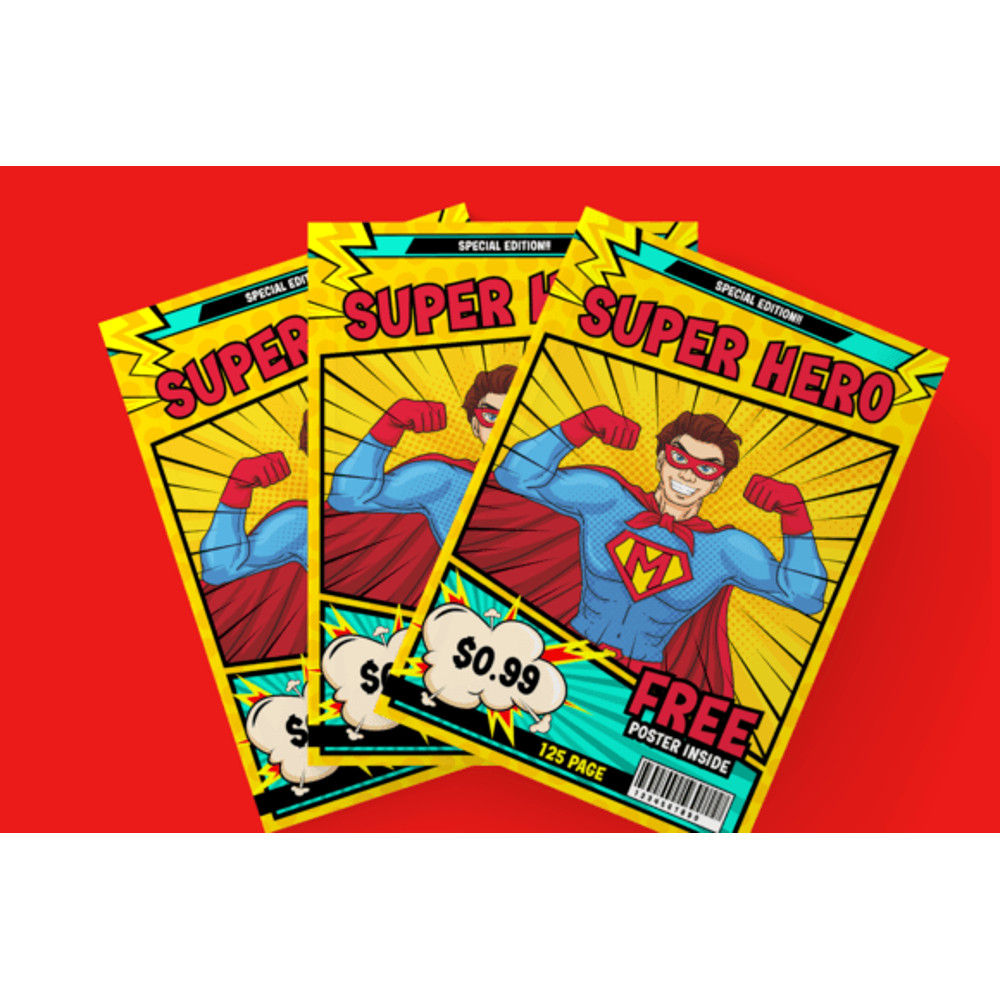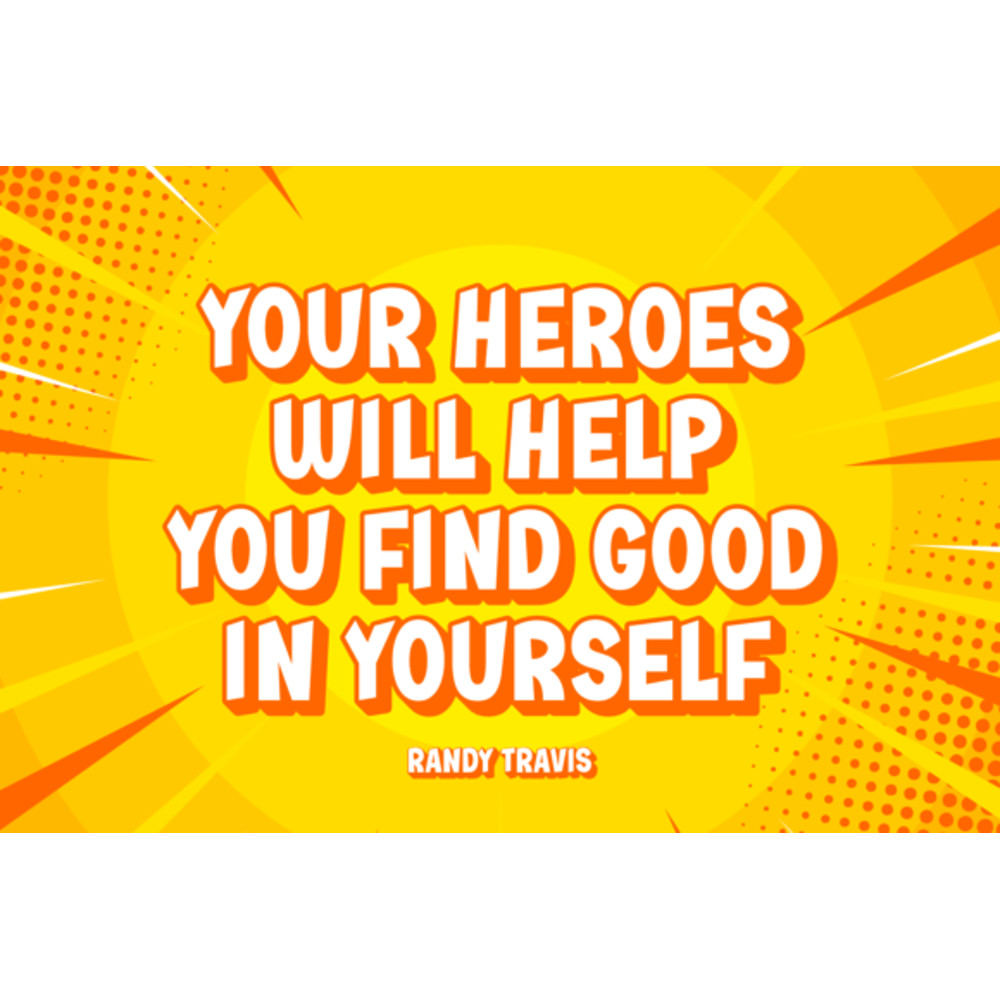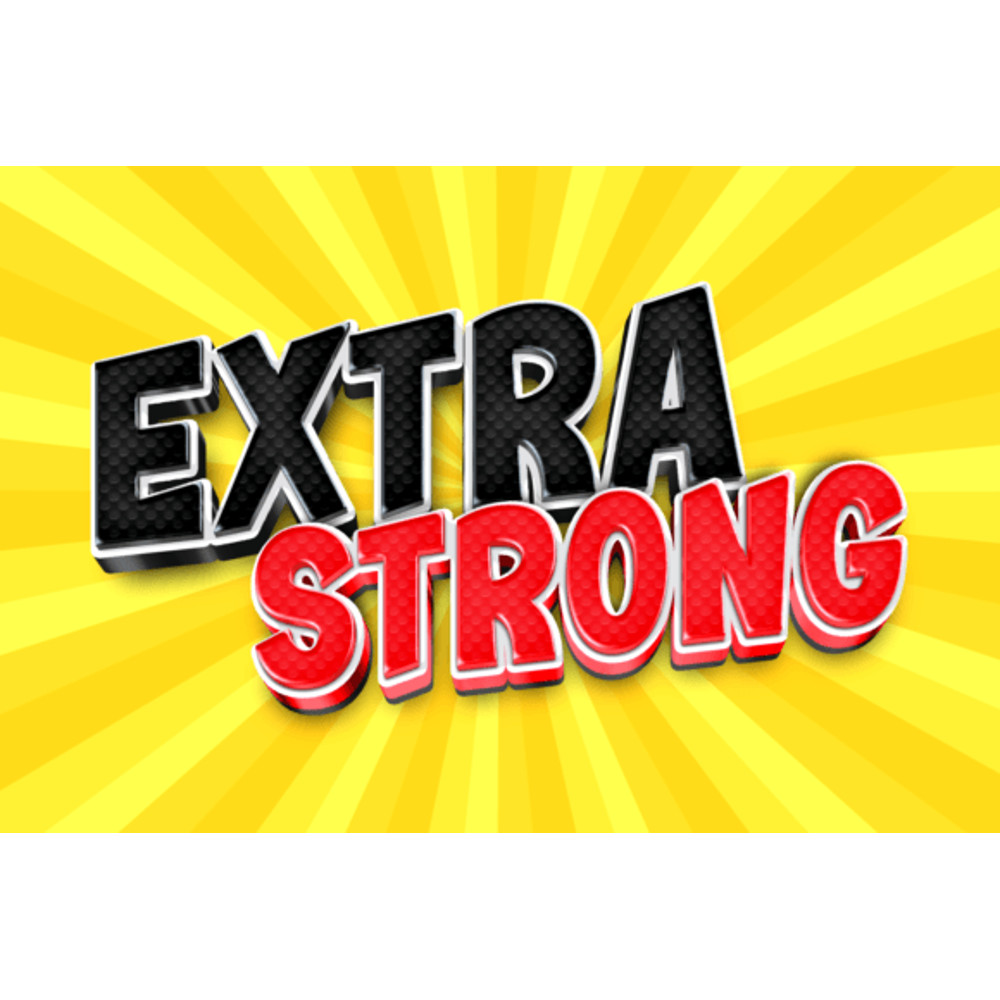
Super Action Font
Super Action is a fun and cheerful display font. Get inspired by the charming cartoon style of this typeface and choose it for your next creative project! You can use it for kids’ t-shirts, child-friendly designs, posters, apps, games, headlines, titles, book covers, apparel, and more.